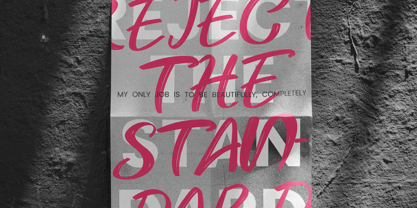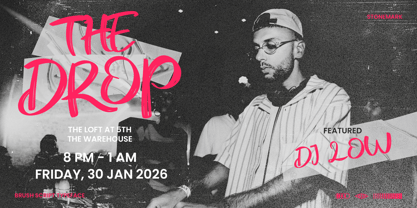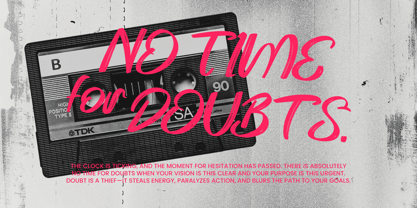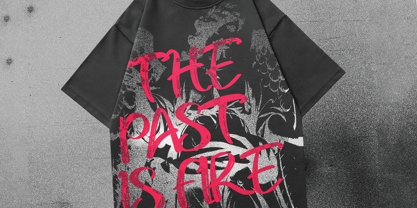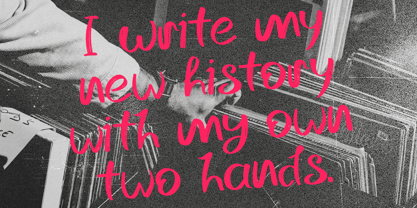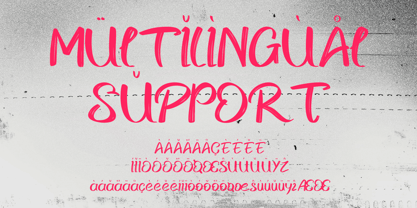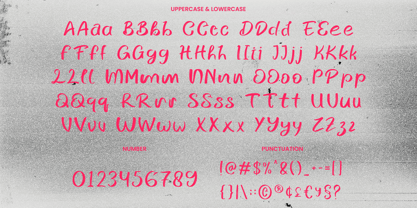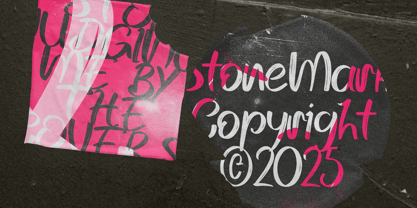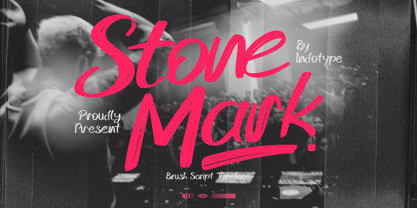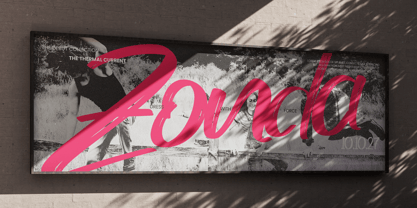
IT Stone Mark
von Indotype
Die Schriftfamilie IT Stone Mark wurde von Frederik Aristaputra entworfen und von Indotype veröffentlicht. IT Stone Mark enthält 2 Stile und Familienpaketoptionen. Mehr über diese Familie
StoneMark is a raw, visceral brush script font that captures the unrefined energy of hand-painted lettering. With its textured strokes, organic variations, and gritty authenticity, this typeface feels both timeless and immediate—as if it was just brushed onto a weathered surface. It embodies a sense of rugged artistry, honest craftsmanship, and bold expression. This font is perfect for projects that demand a human touch and an unpolished, authentic vibe. Whether you're designing for a craft brewery label, an indie band poster, a streetwear brand, or any project that values character over perfection, StoneMark delivers with undeniable personality. It’s not just a font; it’s a statement of hands-on creativity. • Ideal for: Craft Branding, Band Merch, Streetwear Logos, Poster Art, Book Covers, Packaging with an Artisan Feel. • Classification: Script, Brush, Handwritten, Display. • Attributes: Raw, Textured, Expressive, Authentic, Gritty, Artistic, Bold.